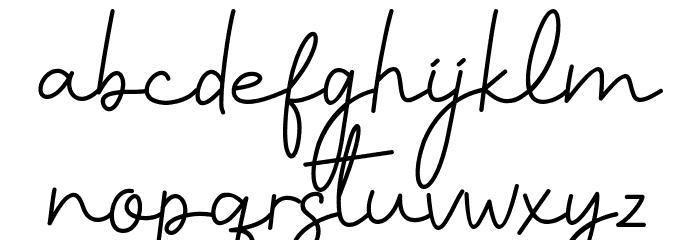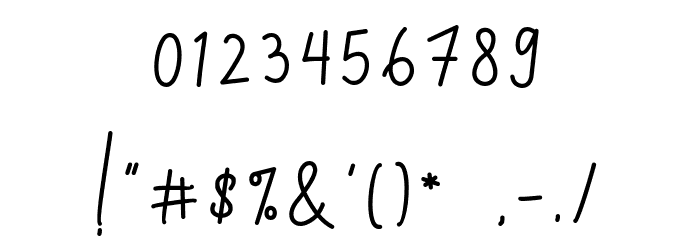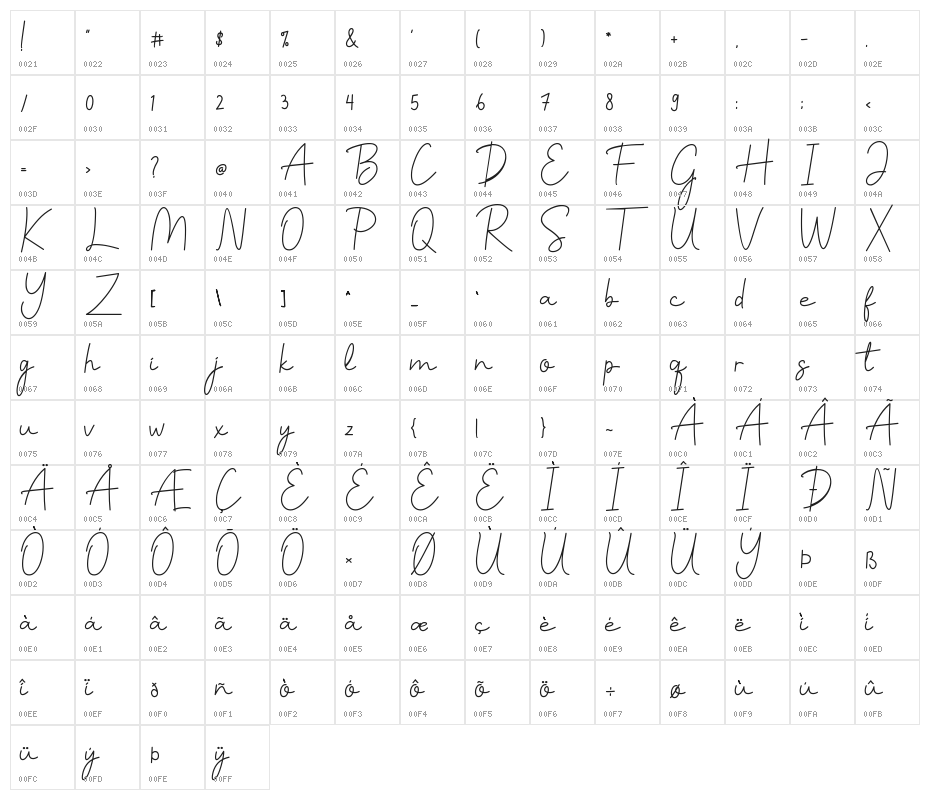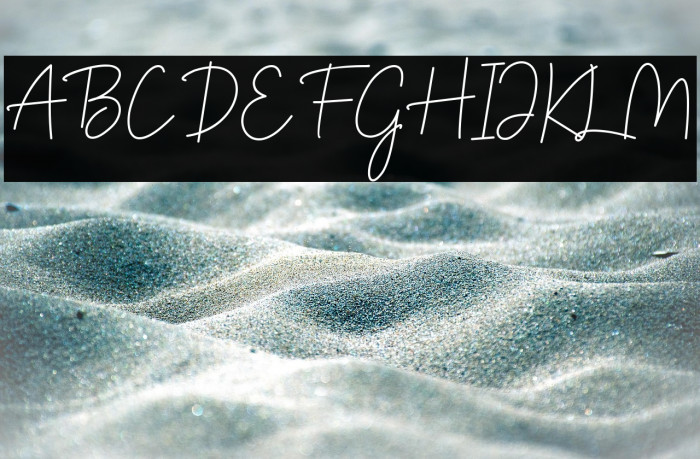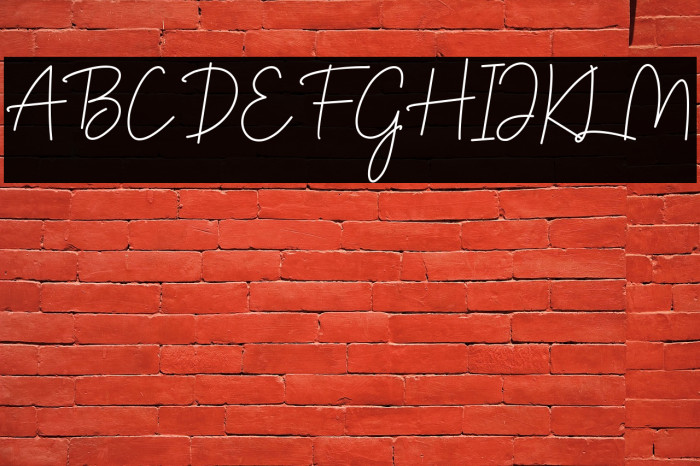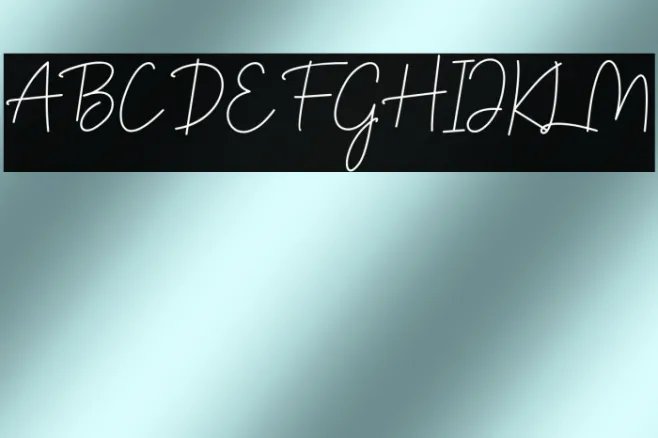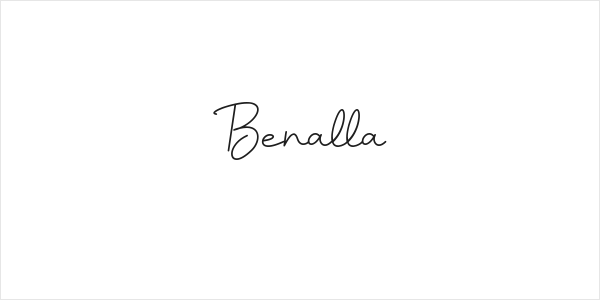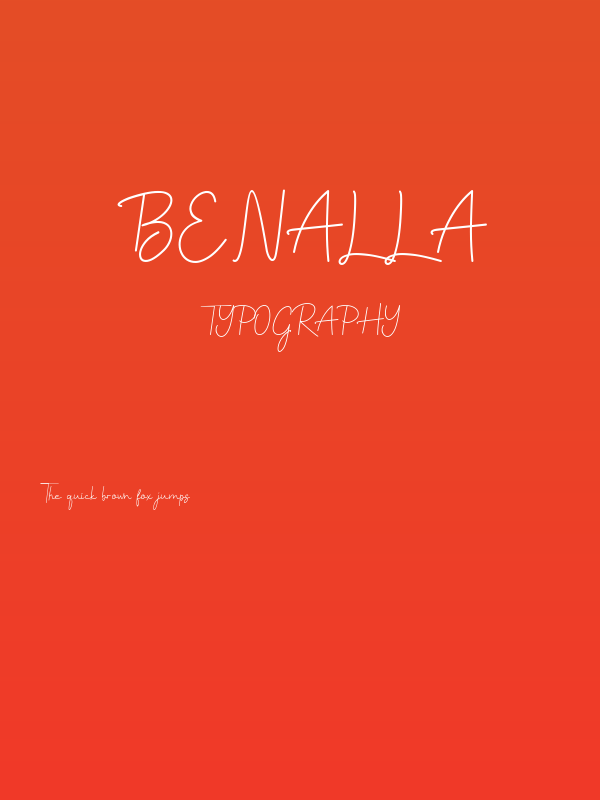
Benalla Font
This font features a playful and casual handwritten style, characterized by its fluid and continuous strokes. The uppercase letters are tall and slender, with a slight slant that adds to the informal feel. The lowercase letters maintain a consistent flow, with some letters like 'g' and 'y' having distinctive loops that enhance the font's charm. The numerals are clear and legible, matching the overall aesthetic with their rounded forms. Special characters are thoughtfully designed, maintaining the same whimsical and approachable style. This font is perfect for projects that require a personal touch, such as invitations, greeting cards, or creative branding.
A playful, casual handwritten font with fluid strokes and a whimsical style.
- Font: Benalla
- Proposed Projects: Ideal for invitations, greeting cards, personal branding, and creative projects.
- Category: Handwritten
- Overall Style: Casual, Playful
- Use Case: Headlines, Logos, Invitations